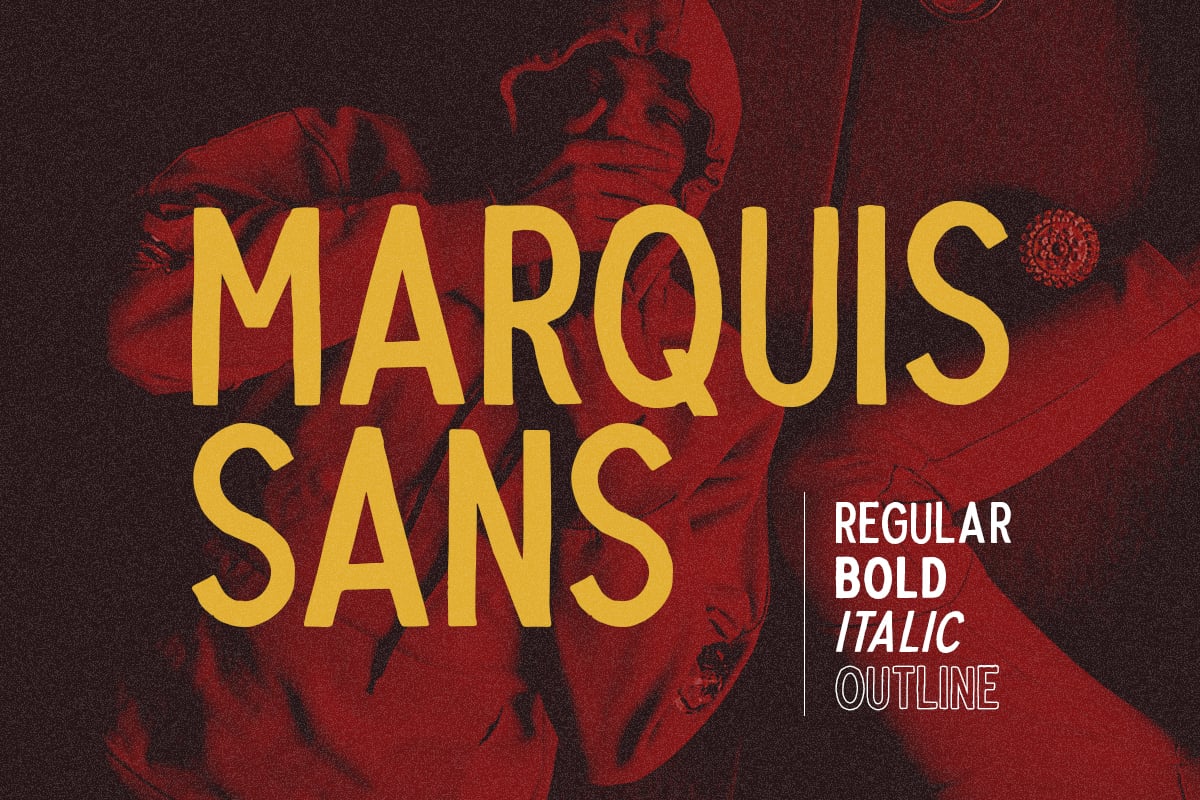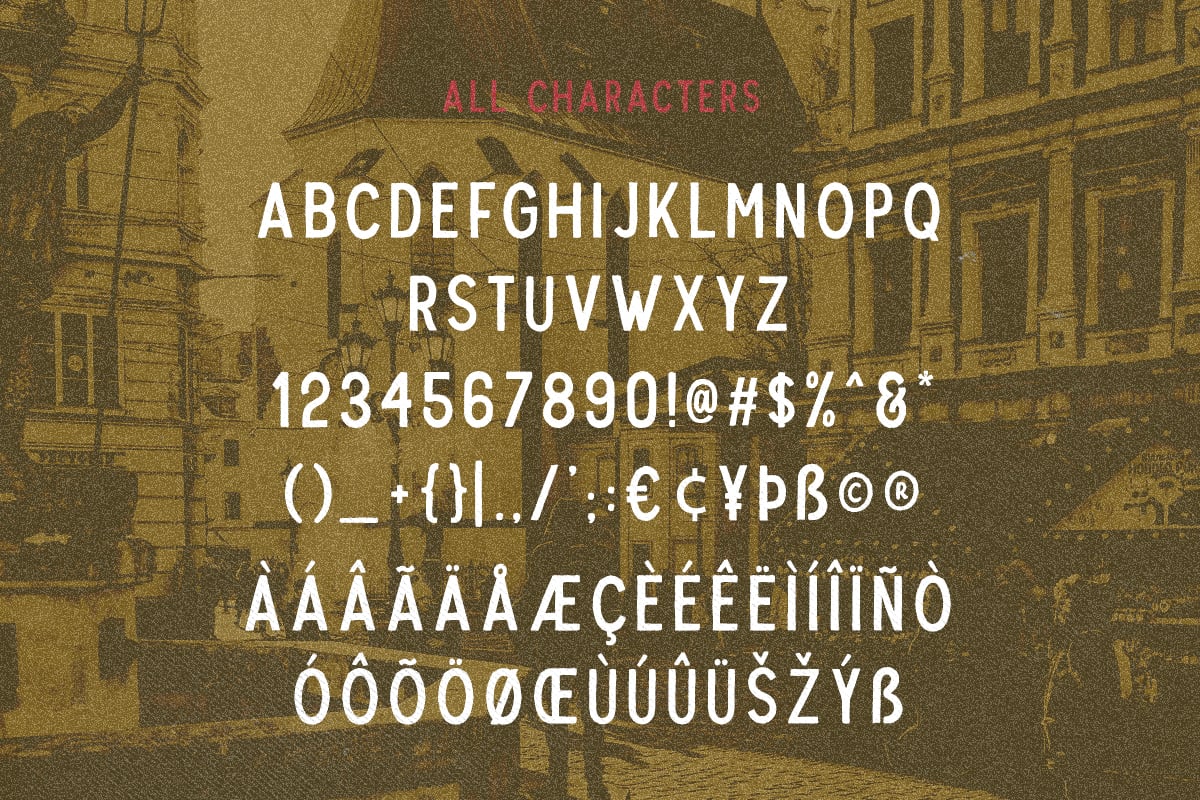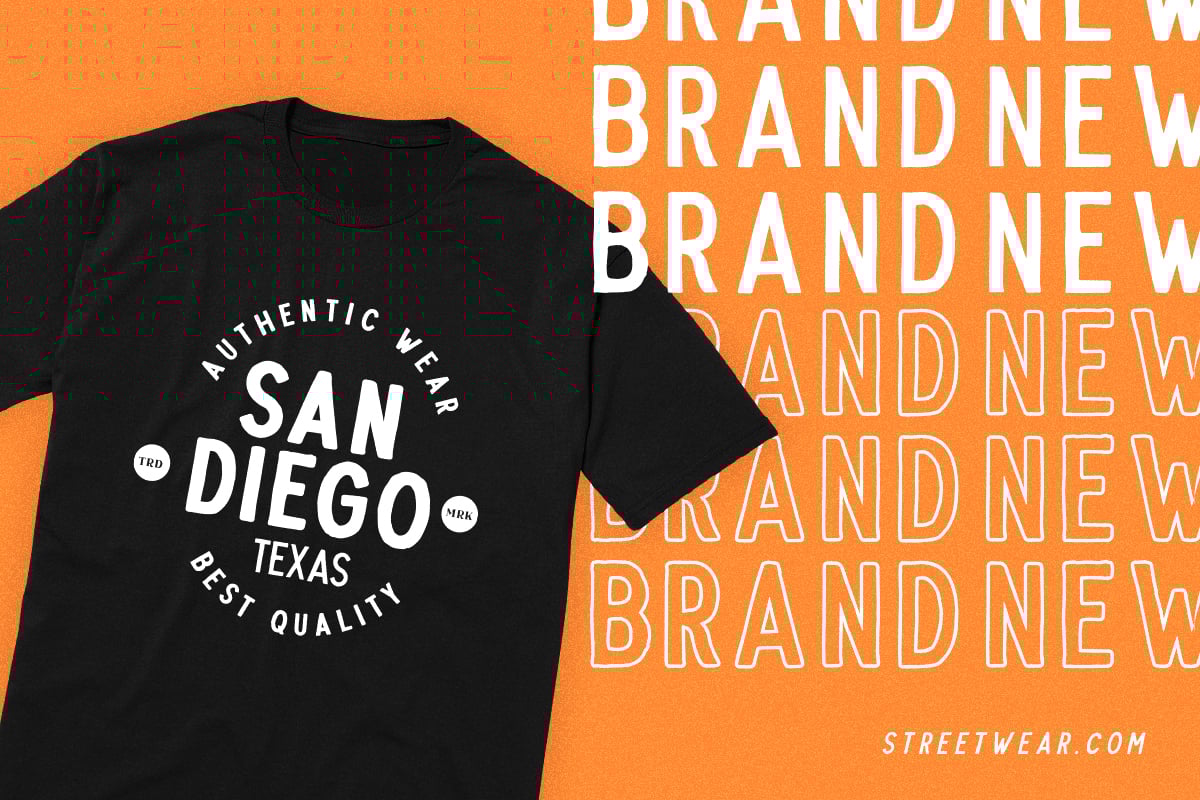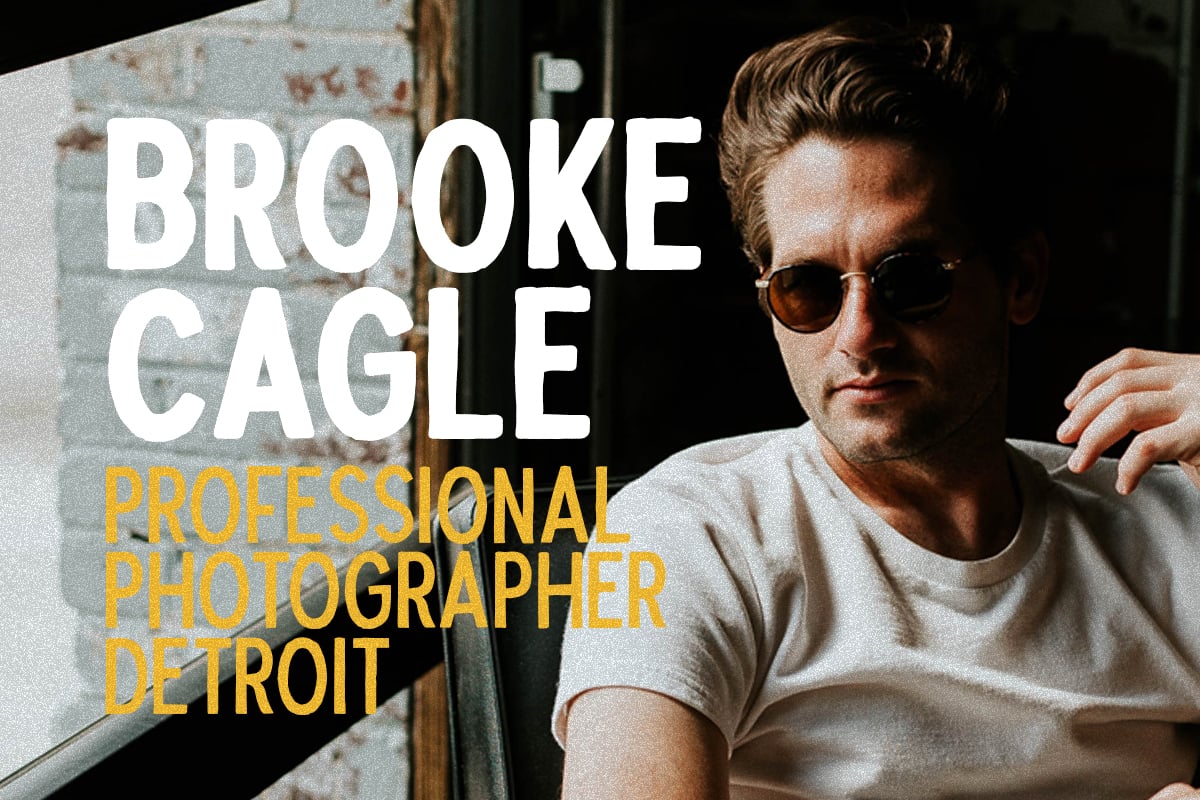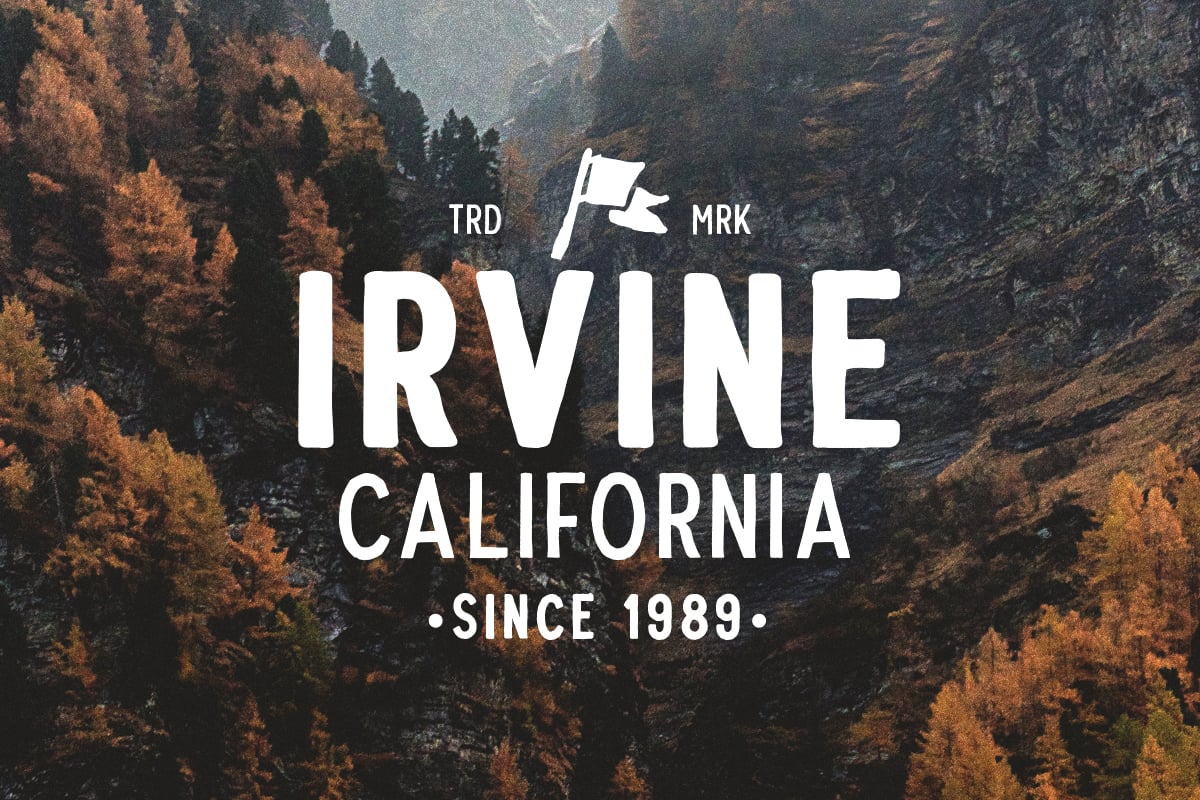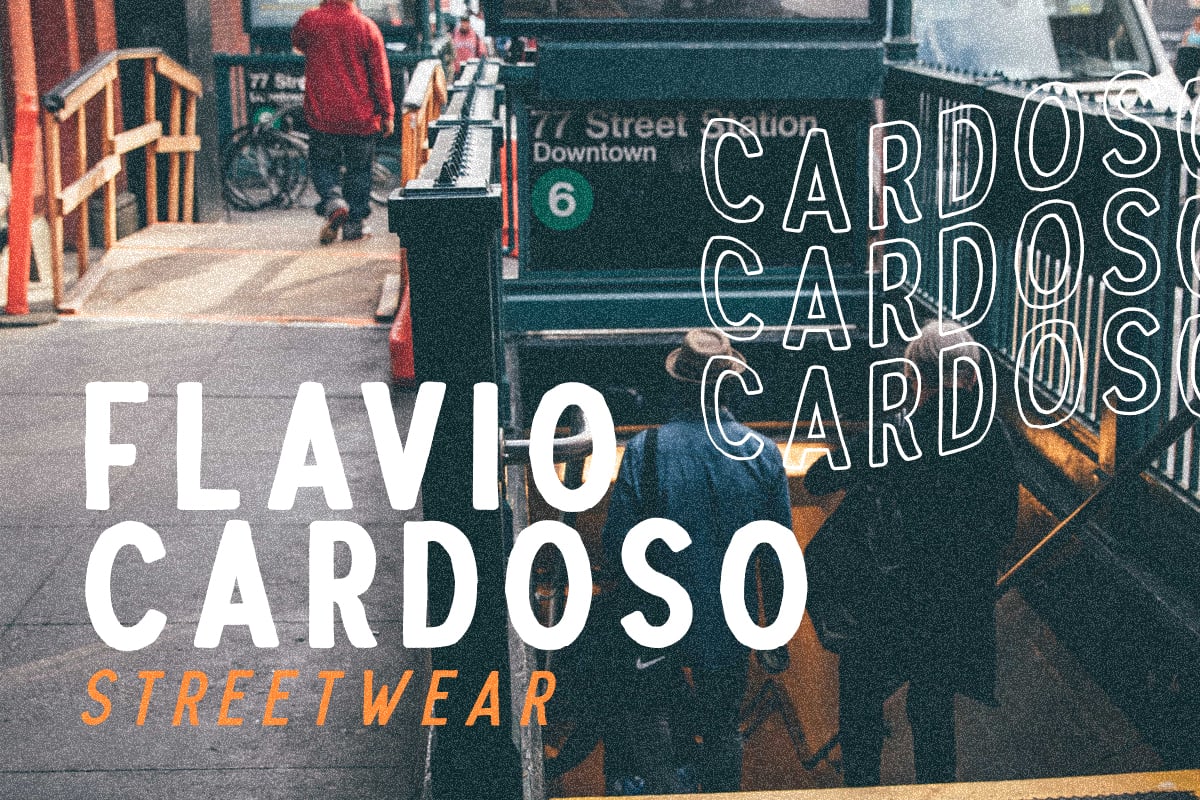
Marquis Sans – Hand Lettering Font
Marquis Sans is a handmade font with natural and organic feels! Contains 4 style. Including Regular – Bold – Italic – Outline. You can use this font for every project. Suitable for branding logo, hand lettering, or apparel design. This font duo also support multilingual, number and symbol.